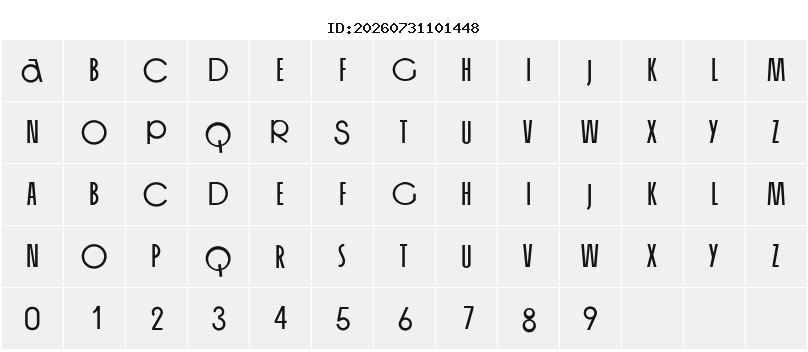
LillyBecker Preview
About LillyBecker.ttf
LillyBecker.ttf is a modern, elegant sans-serif font designed for ultimate readability and visual harmony. Perfect for branding, headlines, web design, and print materials.